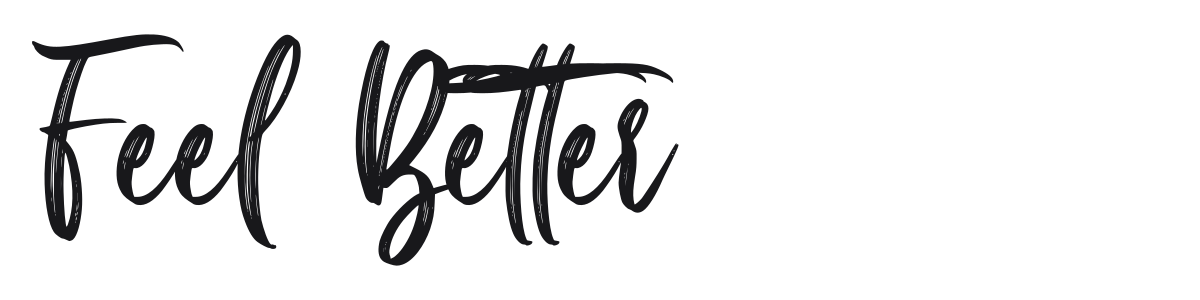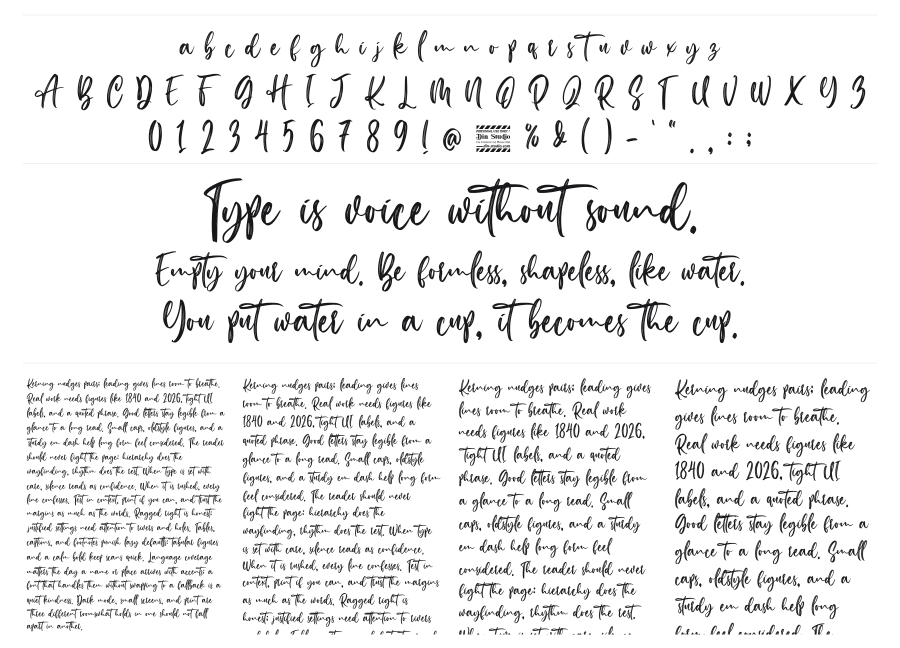
Feel Better
Feel Better is a lively brush script from Din Studio with sweeping swashes and confident ink-style stroke contrast. The letters connect fluidly with looping ascenders and bouncy baseline movement that keeps it feeling natural rather than stiff. It carries that handcrafted warmth that works well for branding, quotes, and social-media graphics.